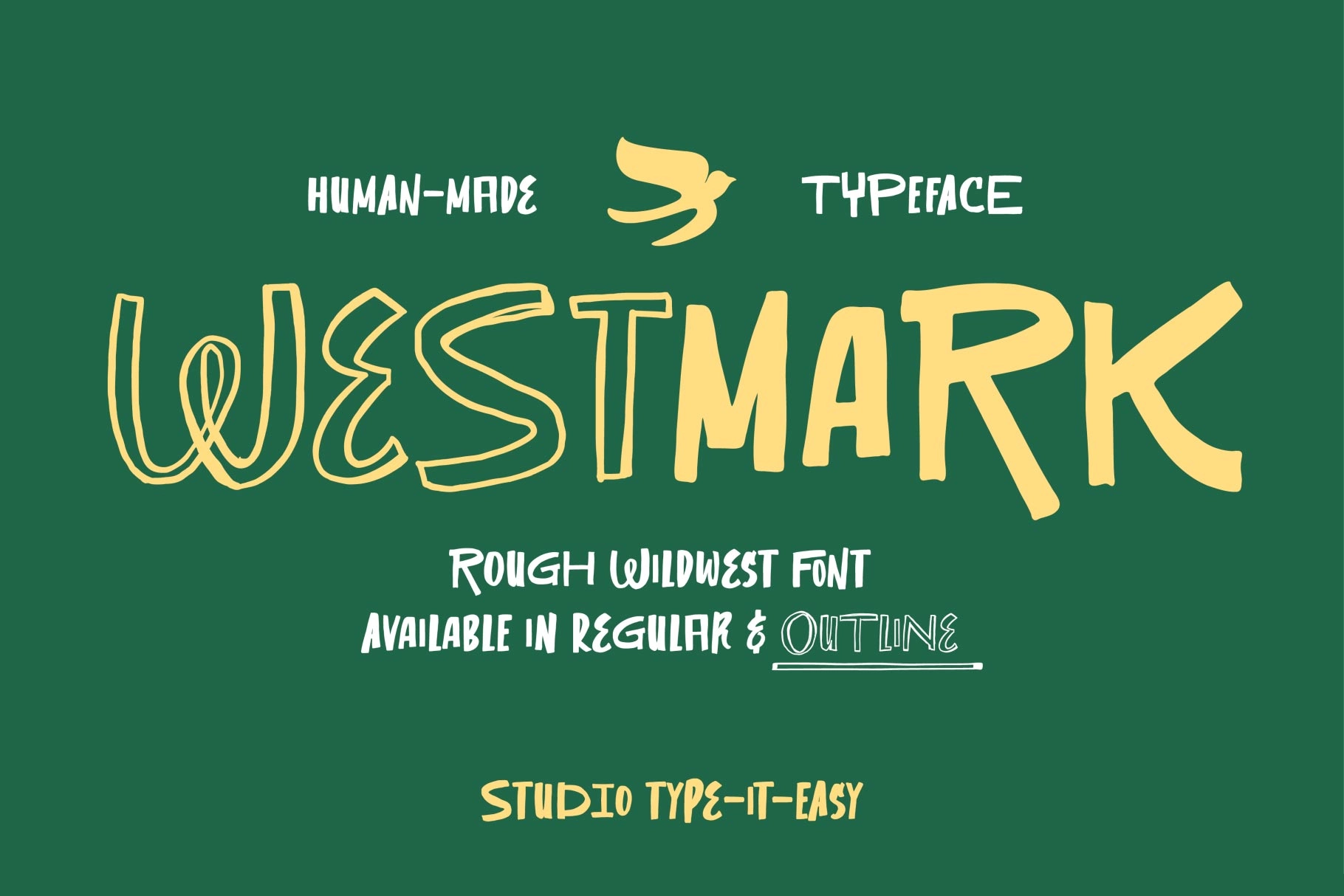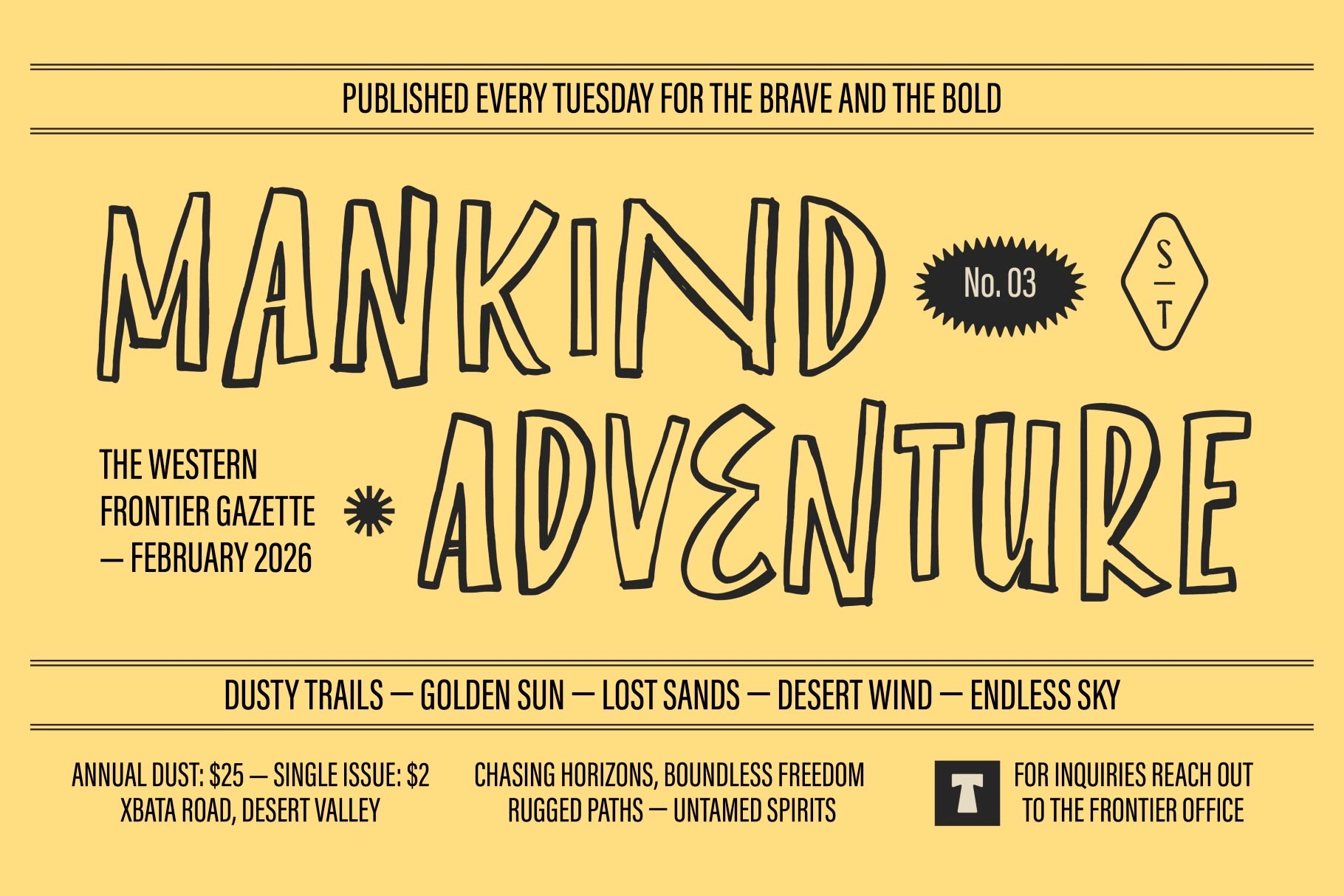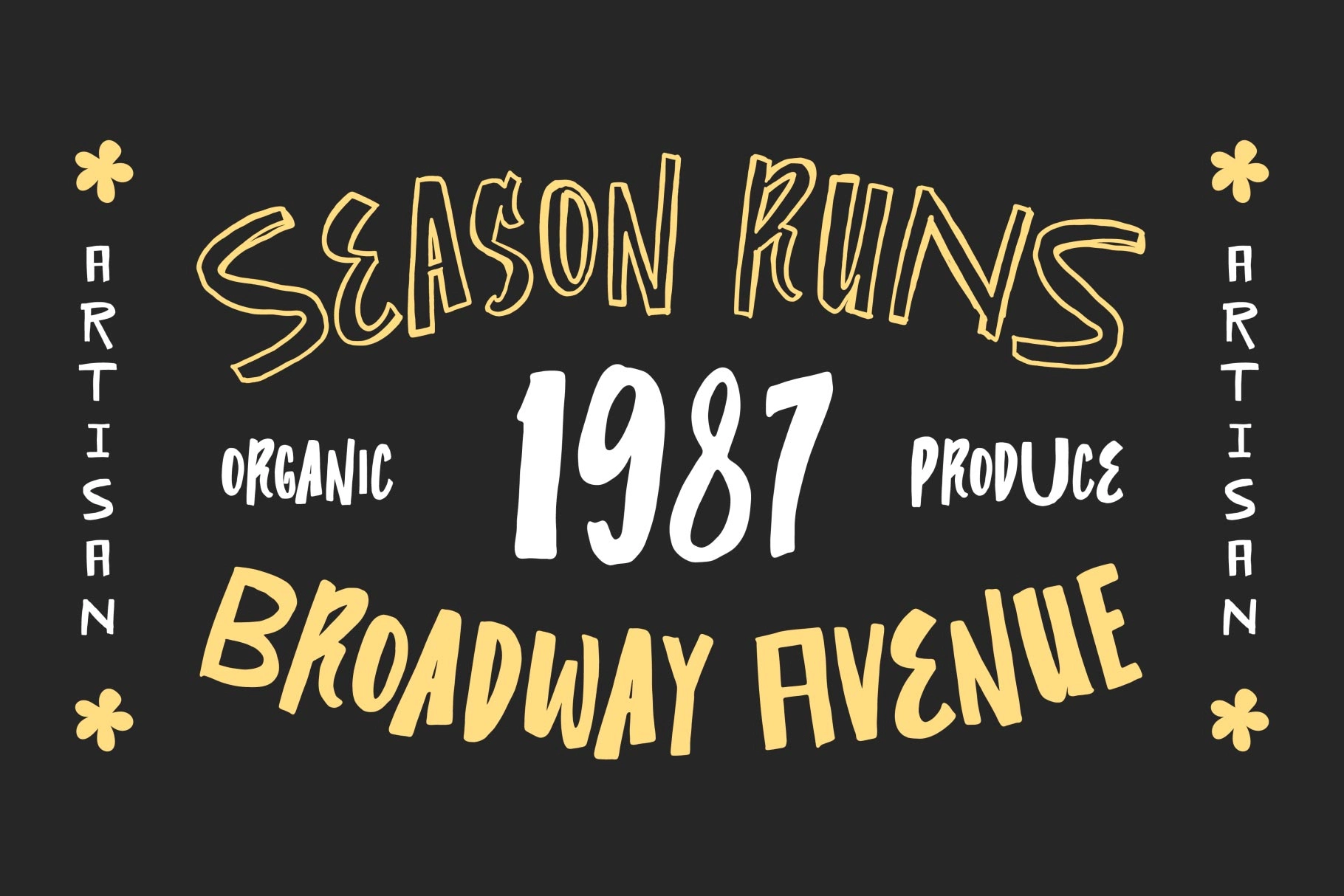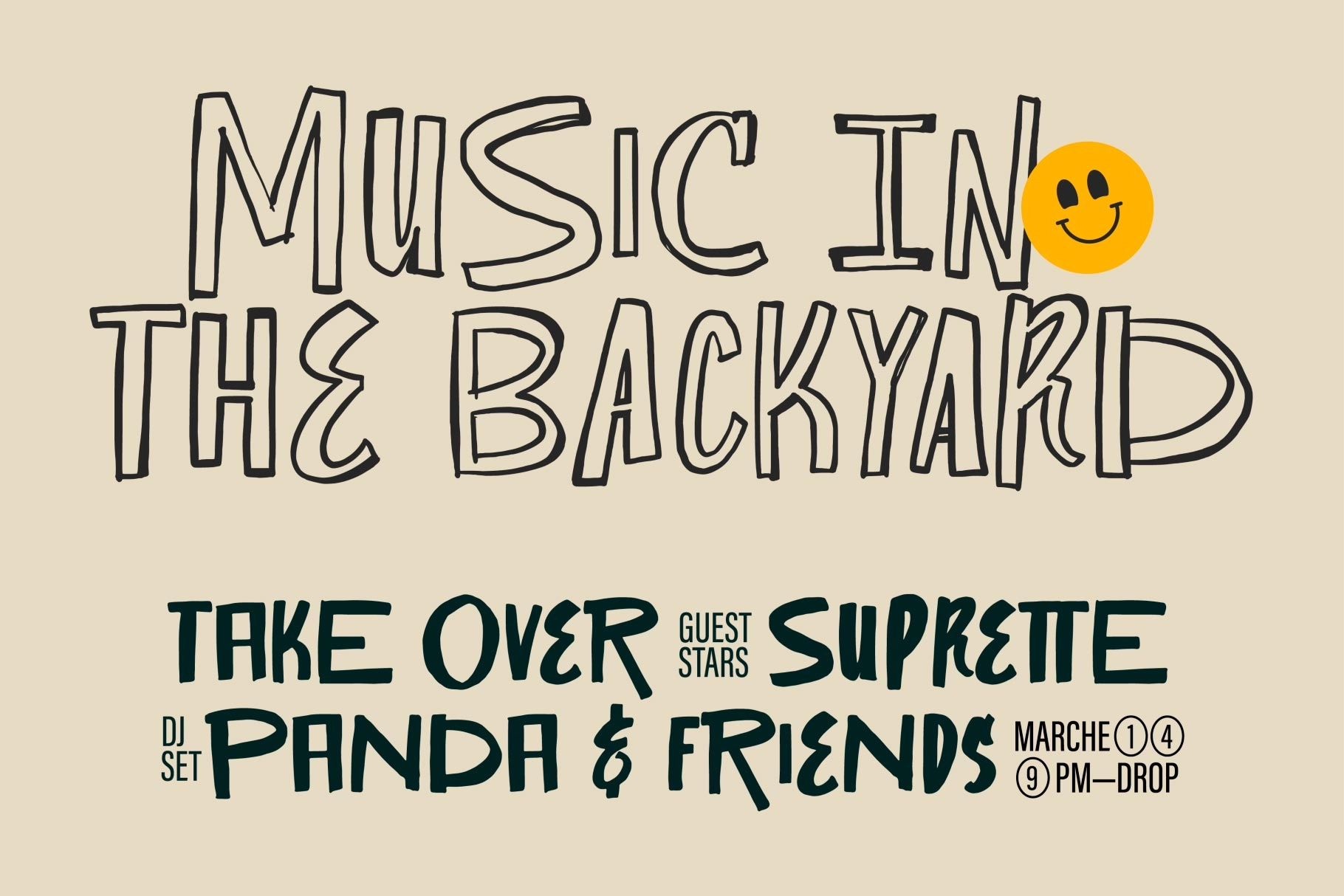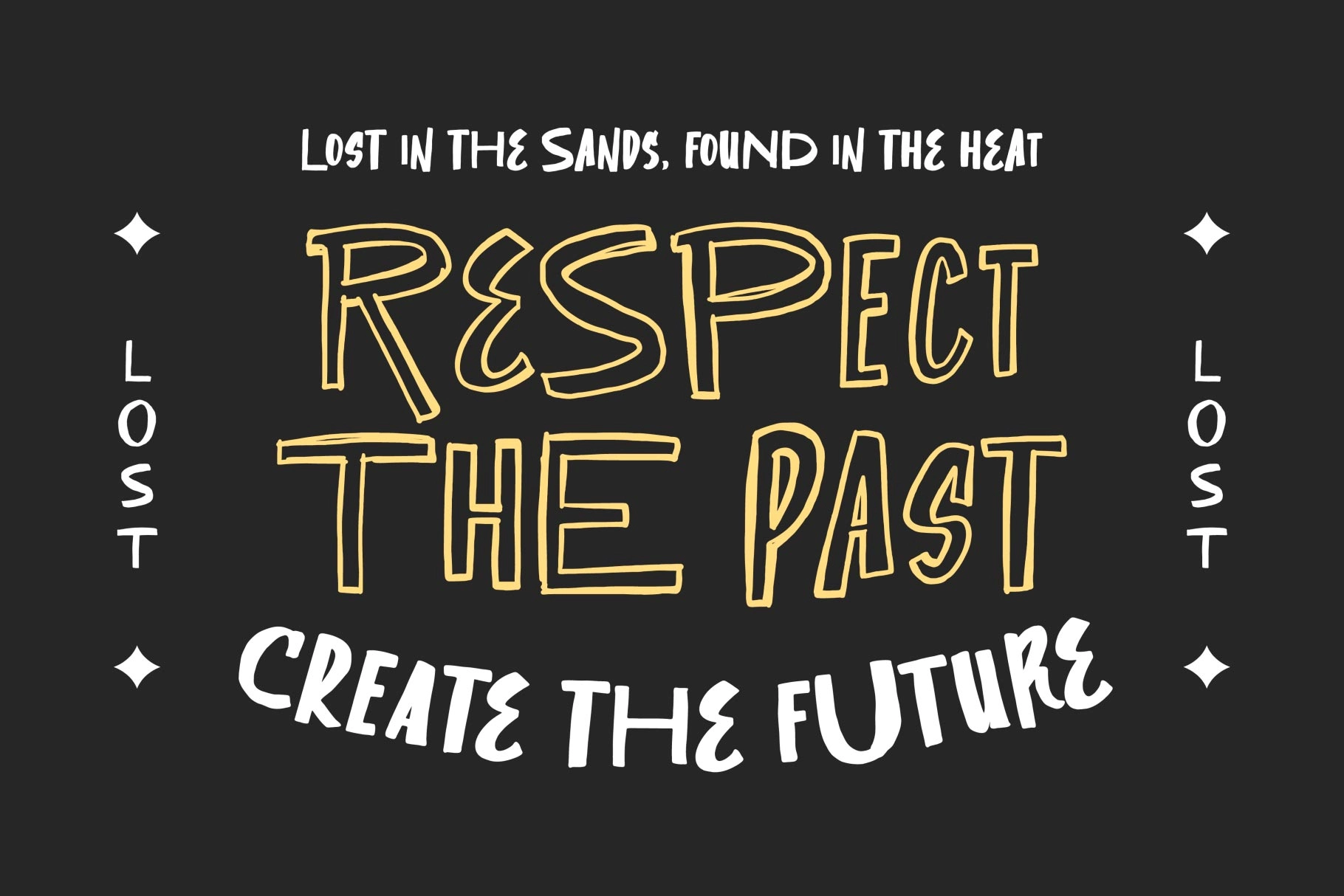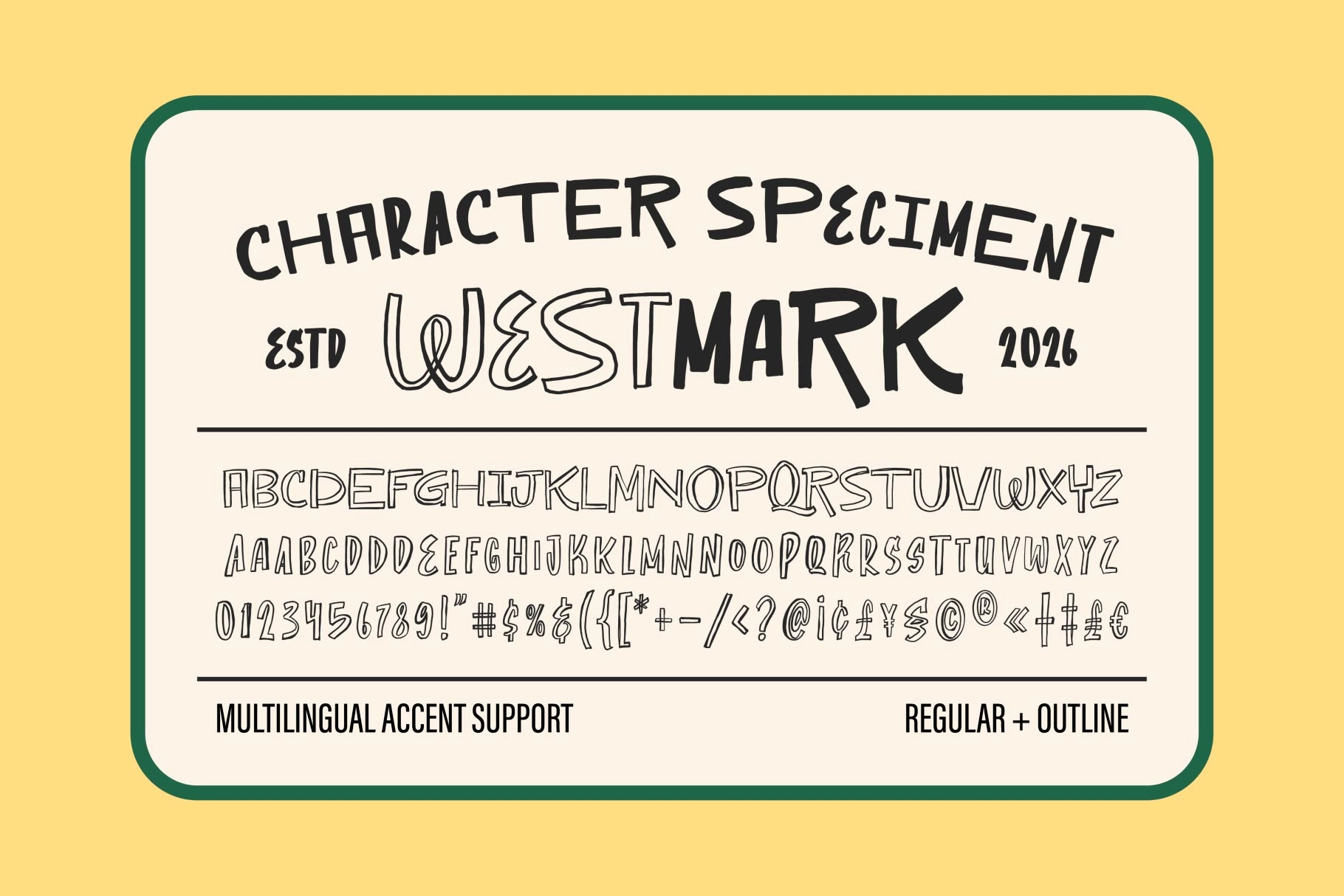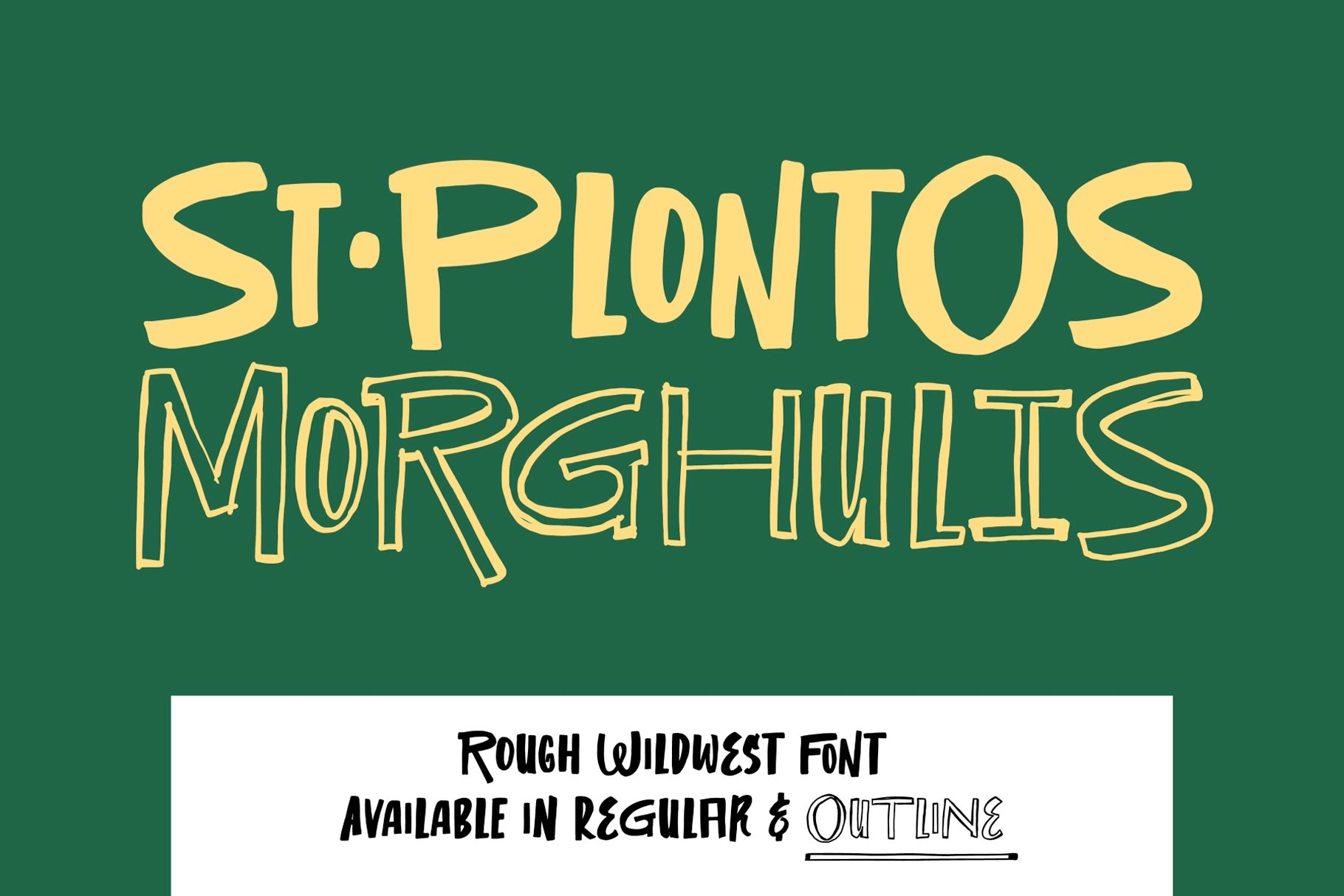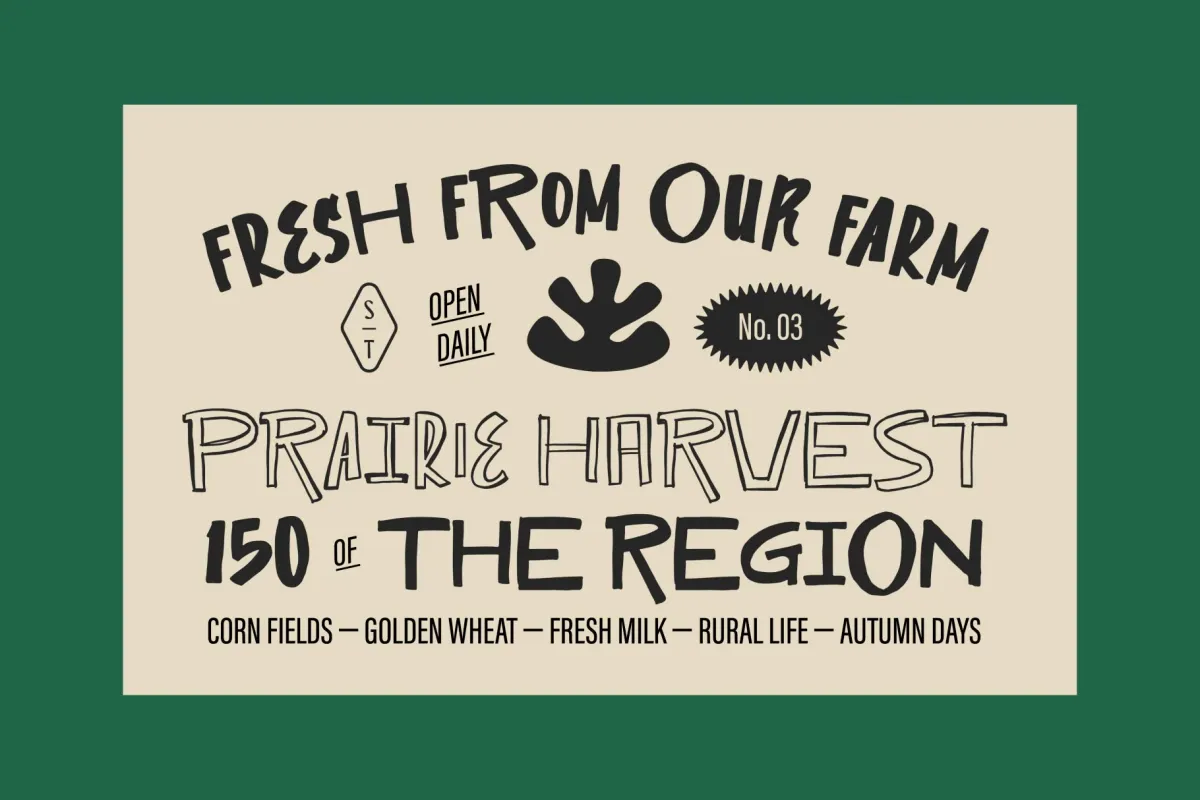
ST Westmark - A Human-Made Rough Wildwest Font
ST Westmark – A Human-Made Rough Wildwest Font is a rugged display typeface inspired by the raw character of vintage western lettering and handcrafted sign painting. Designed by Studio Type-it-Easy, this font embraces the “human-made” aesthetic with rough edges, imperfect strokes, and expressive forms that feel authentic and full of personality. Its bold structure and hand-drawn texture capture the spirit of frontier typography while remaining versatile for modern creative work.
Built for designers who want character-driven typography, ST Westmark works beautifully in adventure branding, editorial headlines, merchandise design, and vintage-style graphics. The font includes a solid Regular style and a modern Outline variation, giving you flexibility to create layered compositions and distinctive typographic layouts with a strong Wild West attitude.
• 2 Styles: Regular & Outline
• Hand-Drawn Rough Wild West Style
• Uppercase & Lowercase Characters
• Numerals & Punctuation
• Expressive Human-Made Letterforms